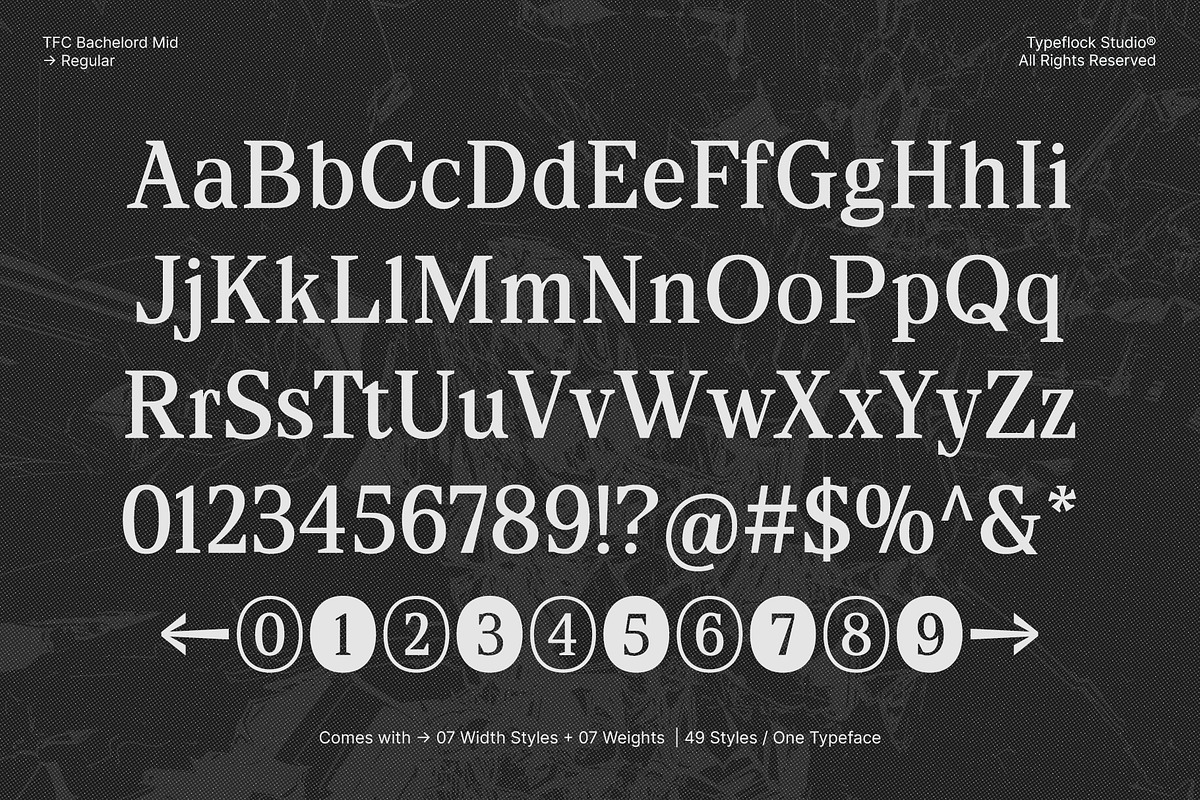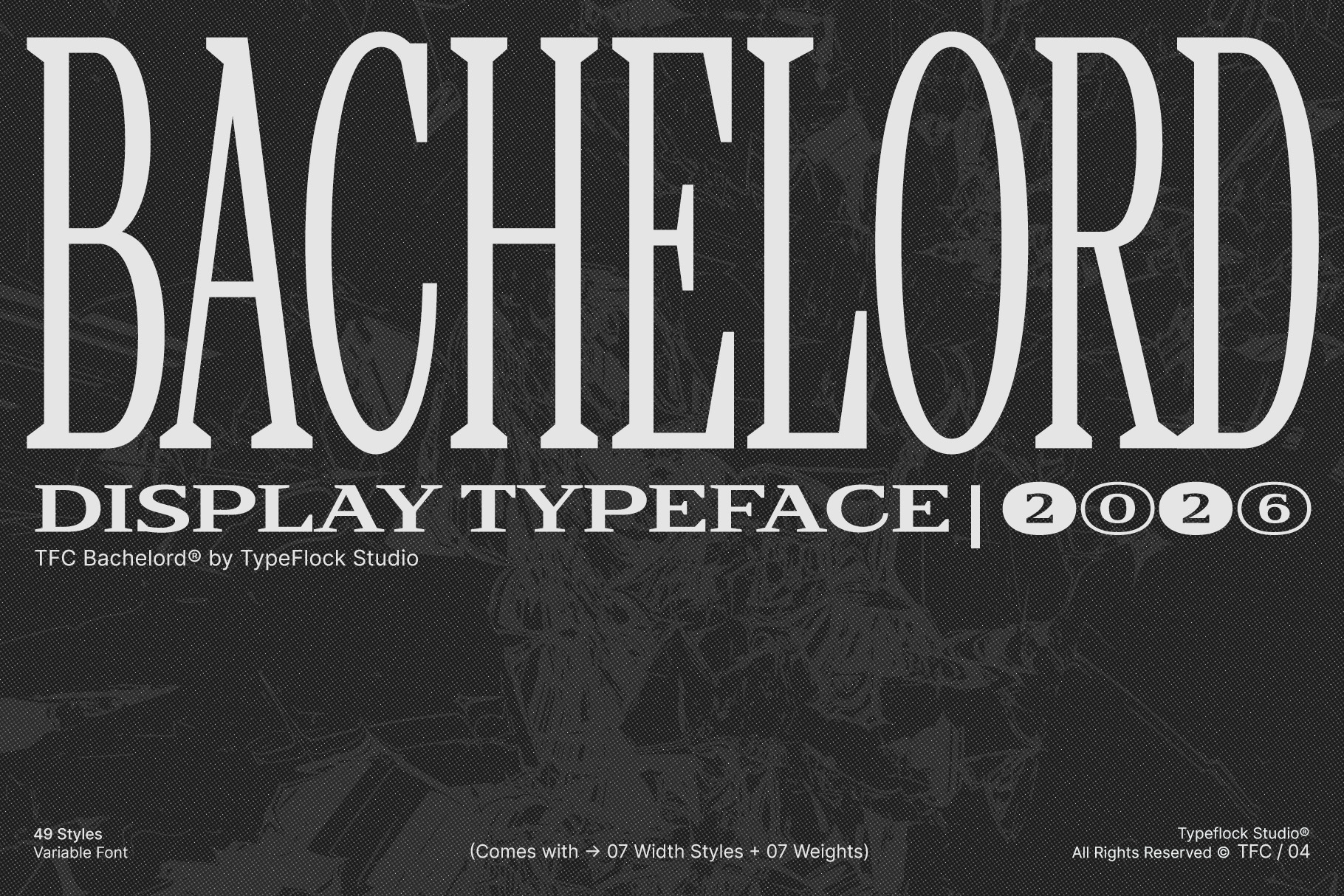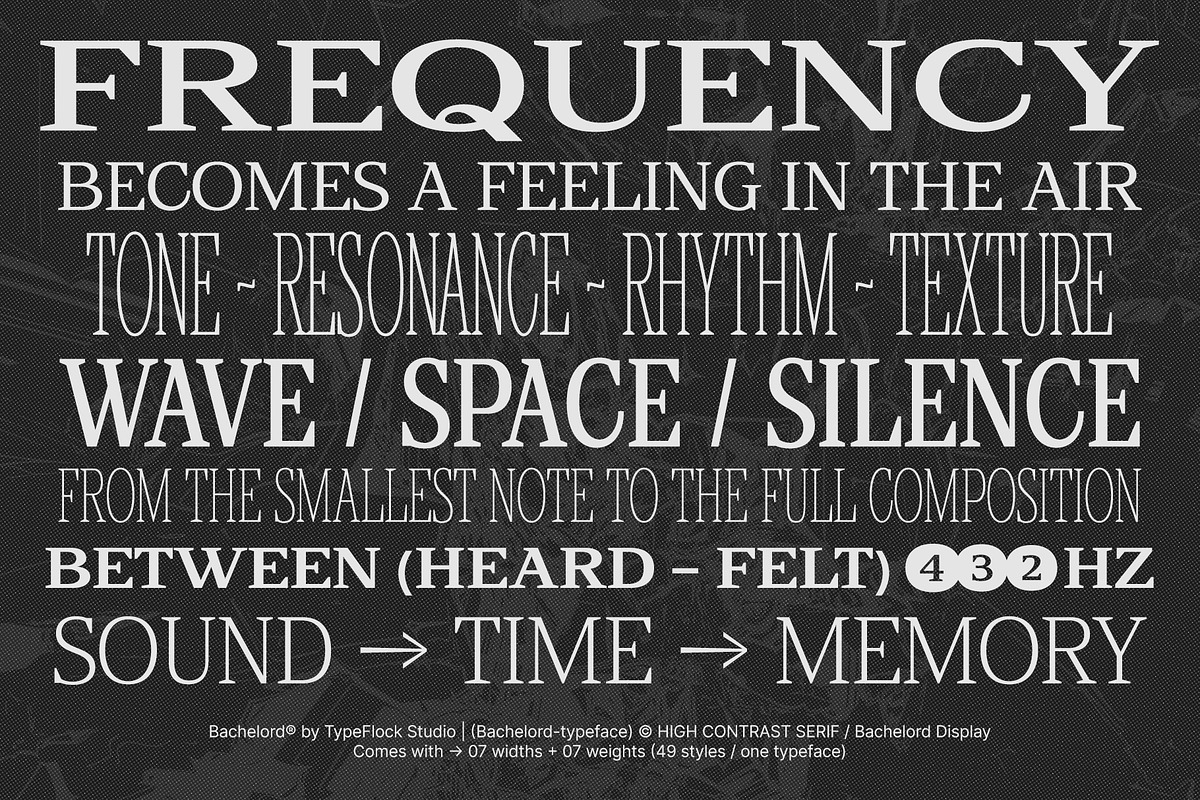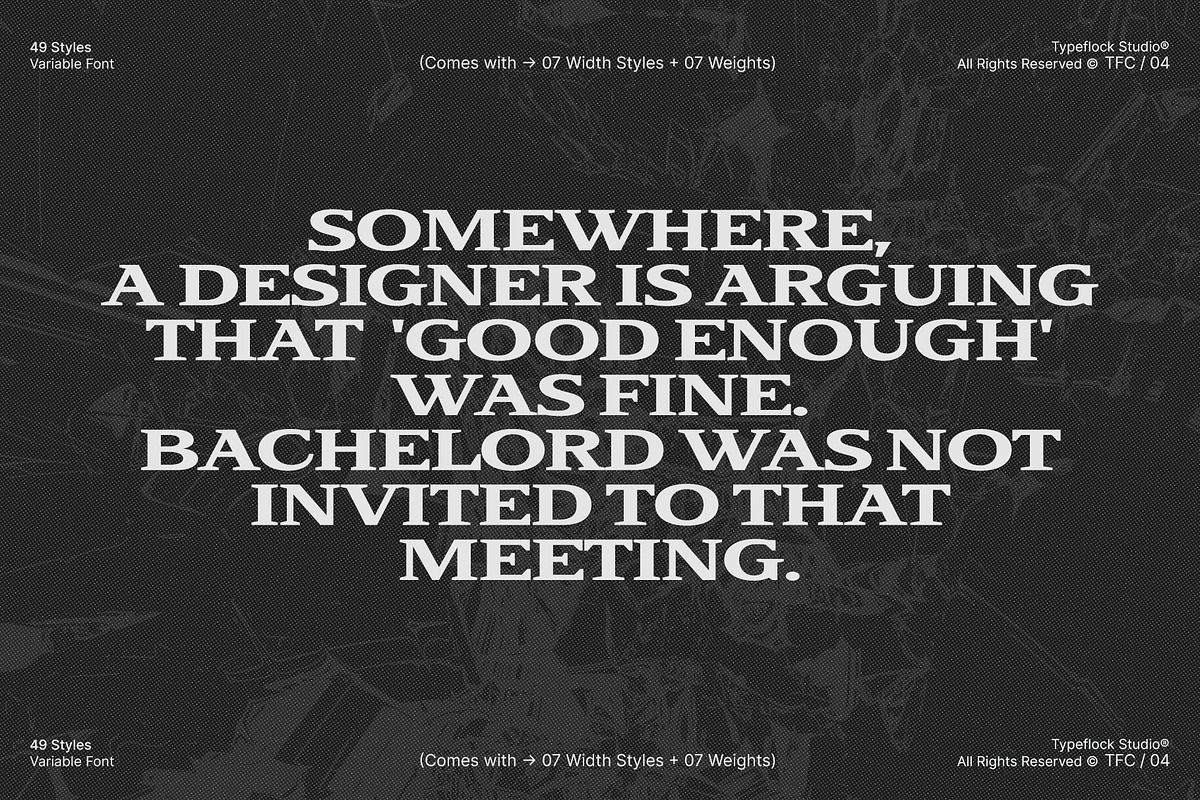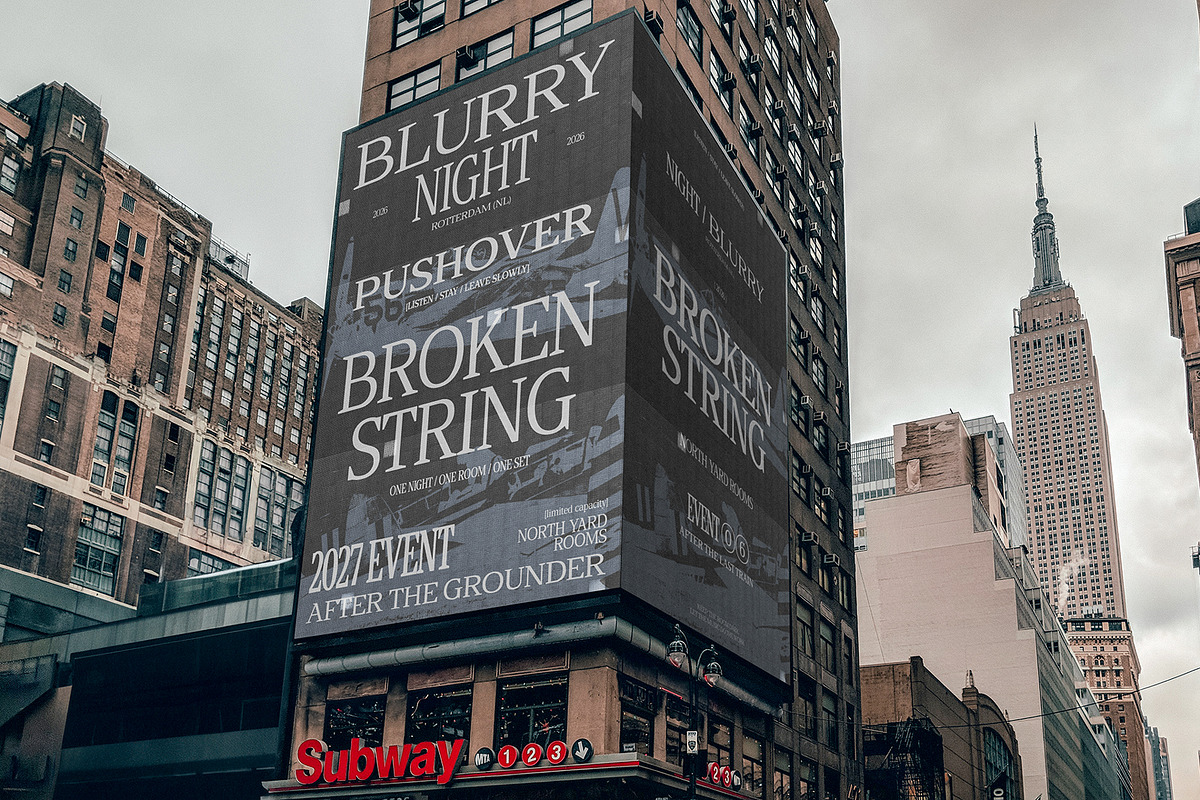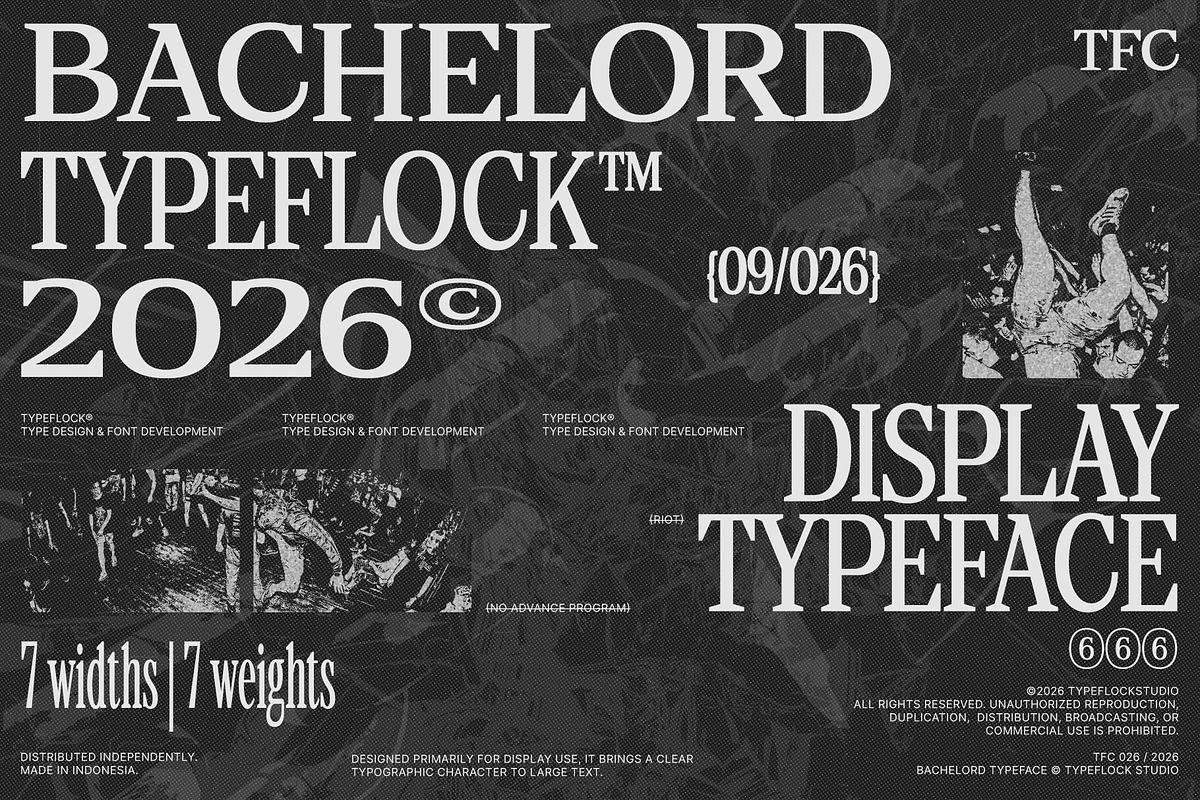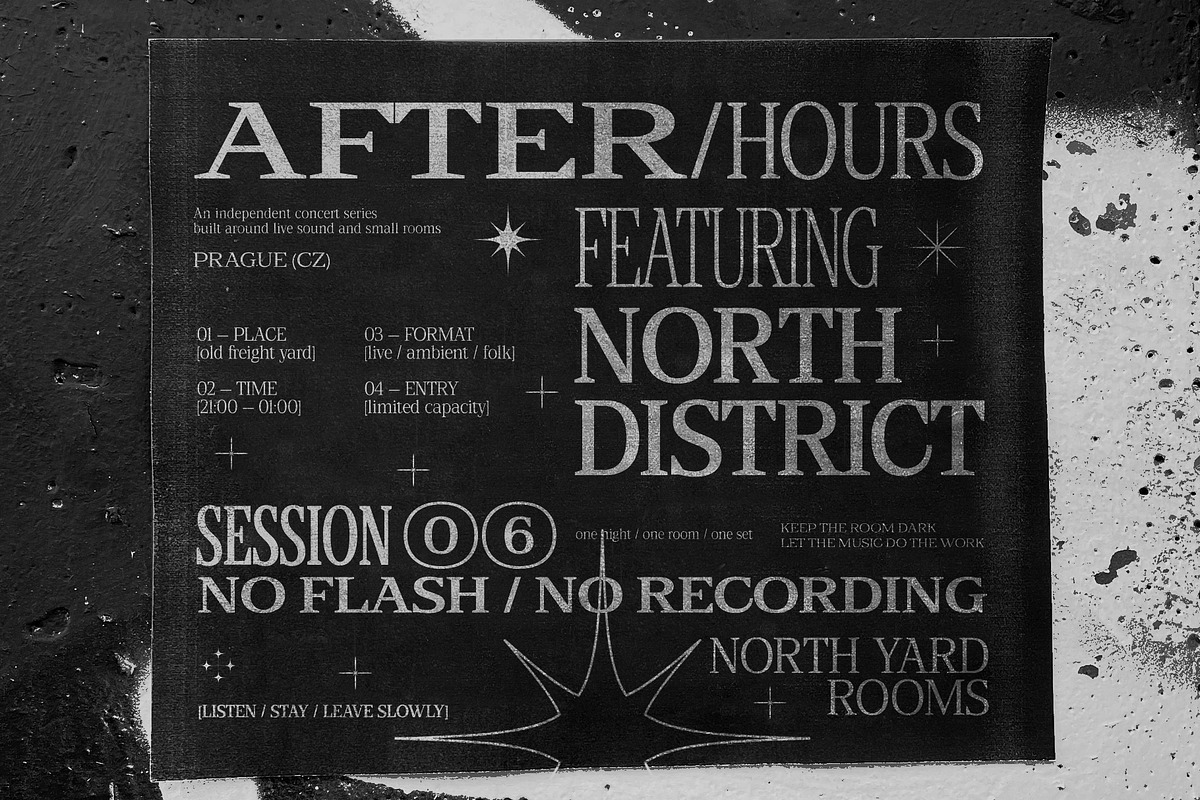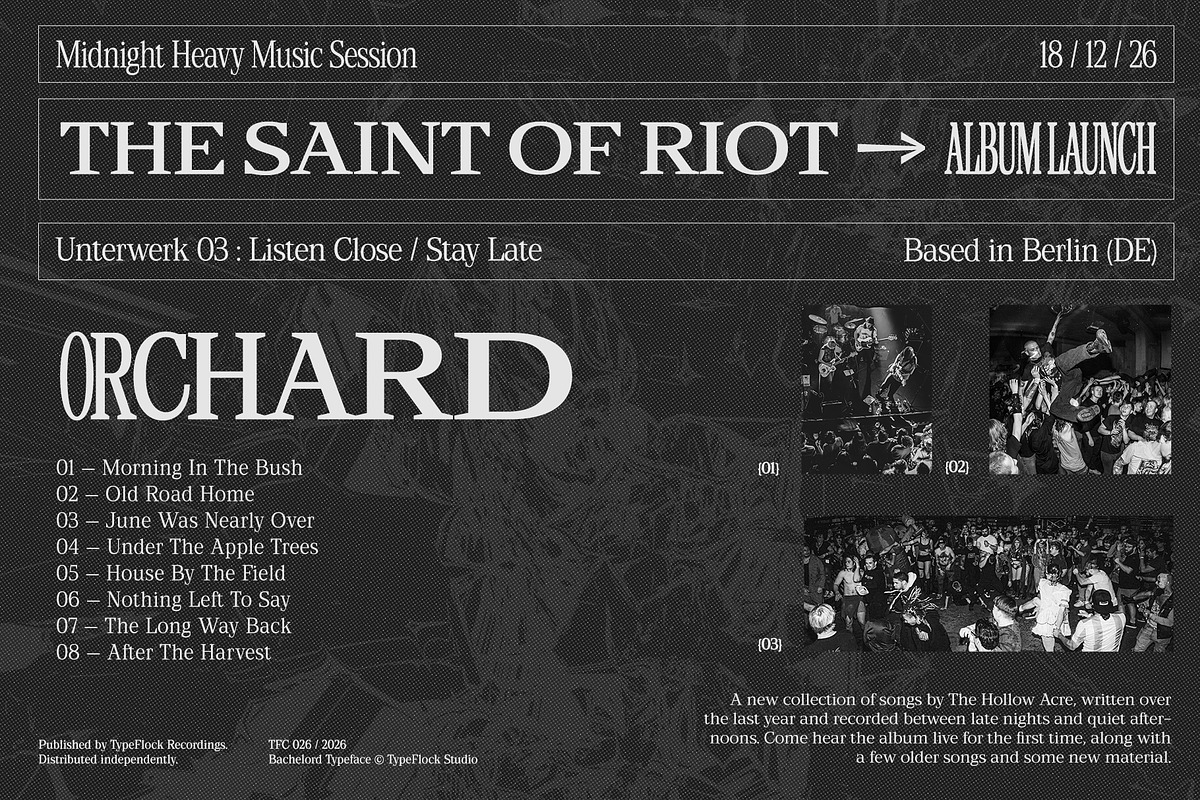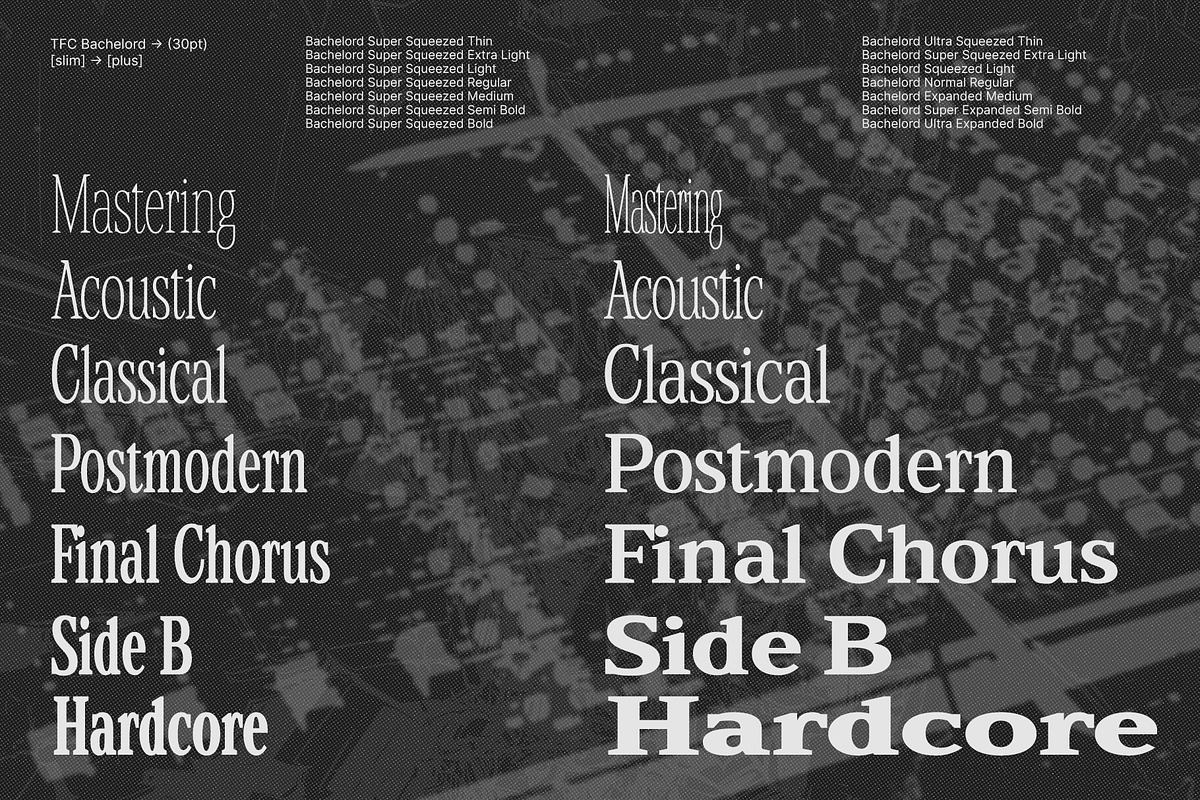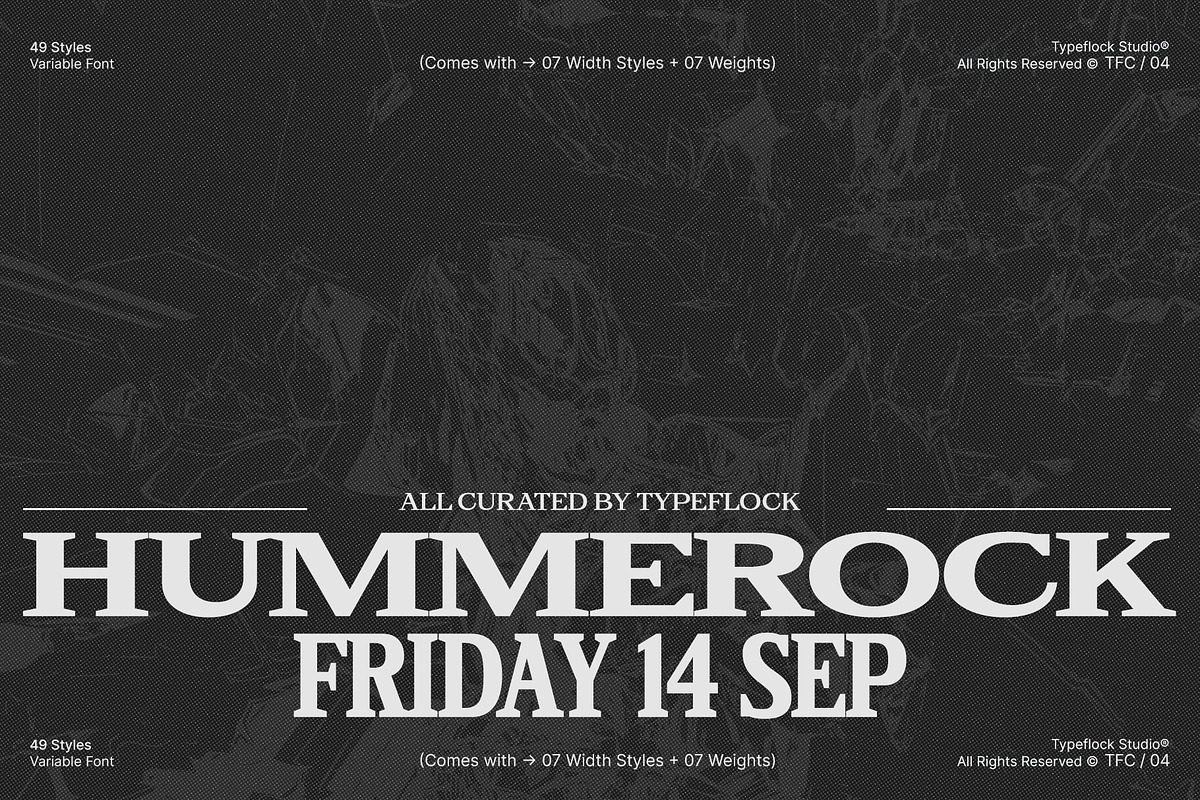
TFC Bachelord - High Contrast Font
TFC Bachelord — Sharp Editorial Authority
TFC Bachelord is a high-contrast display serif typeface built for work that commands attention. It carries a sharp editorial edge, with deep roots in music culture, print, and independent publishing. Use Bachelord for album covers, concert posters, billboard campaigns, editorial layouts, and other visual systems that need strong typographic presence.
The family offers serious range: 49 styles across 7 widths and 7 weights. It is also available as a Variable Font for full axis control. From Super Squeezed Thin to Ultra Expanded Bold, Bachelord covers demanding layout needs while keeping one cohesive visual identity.
49 Styles total
7 Width Styles: Super Squeezed · Ultra Squeezed · Normal · Expanded · Super Expanded · Ultra Expanded
7 Weights: Thin · Extra Light · Regular · Medium · Semi Bold · Bold
Full OpenType feature support
Extended Latin character set
Multilanguage support (20+ languages)
OpenType Features
Case Sensitive Forms
Localizations & Diacritics
Currency Symbols
Fractions & Superscripts
Arrow Symbols
Music branding & album artwork
Concert & event posters
Editorial headlines
Magazine typography
Independent publishing
Brand identity
Billboard & signage
Merch & apparel graphics